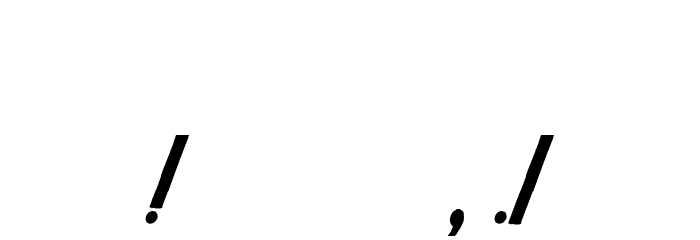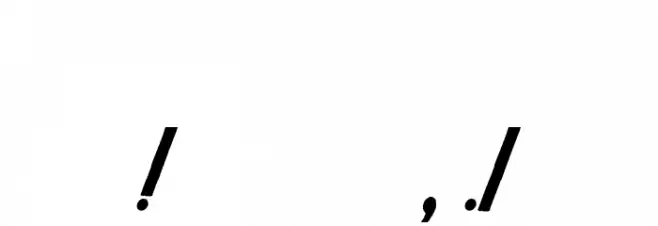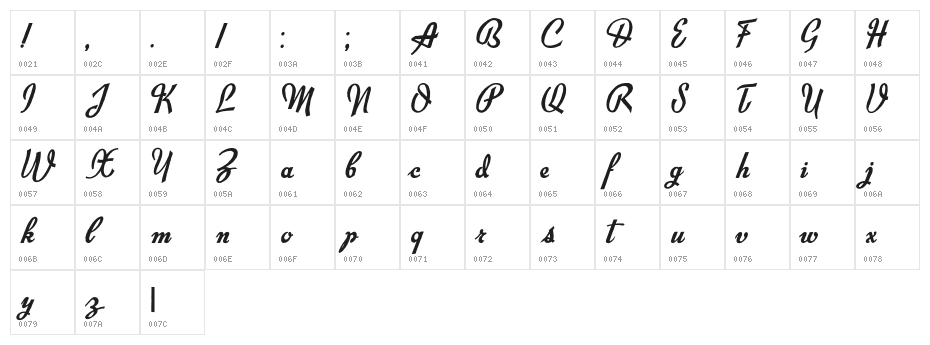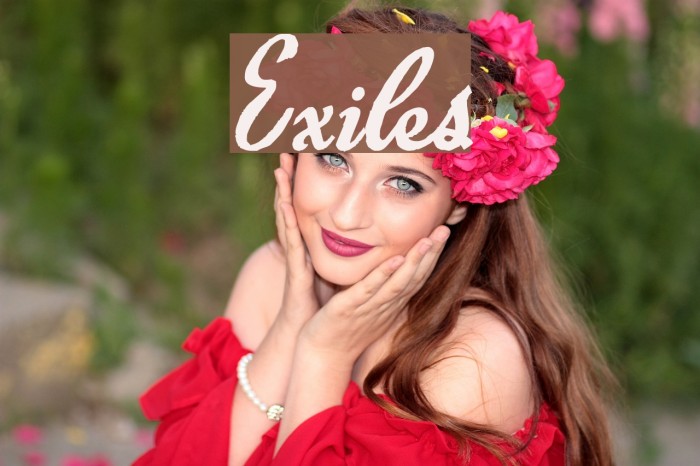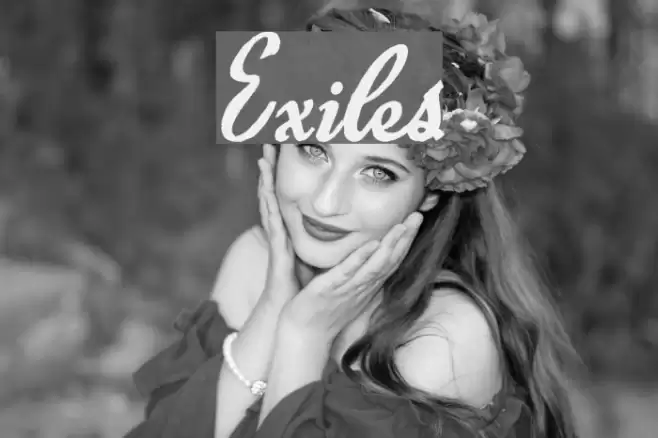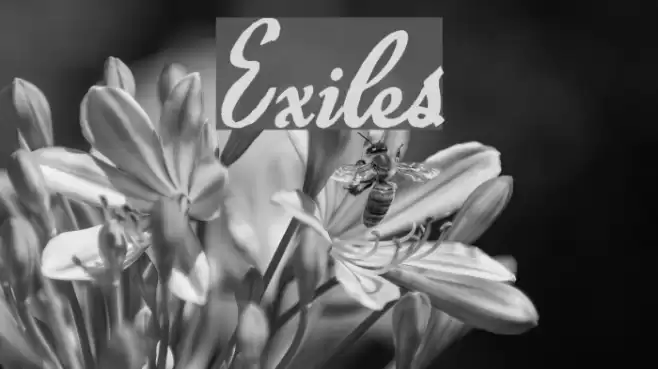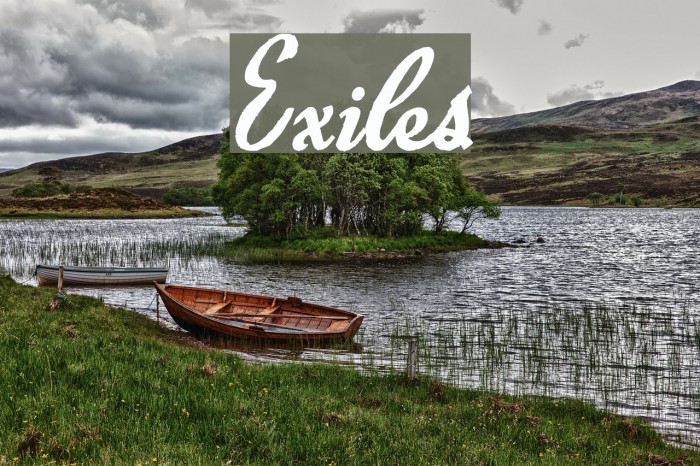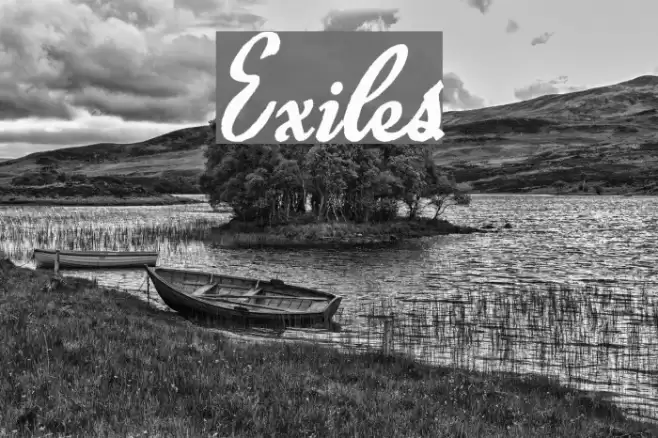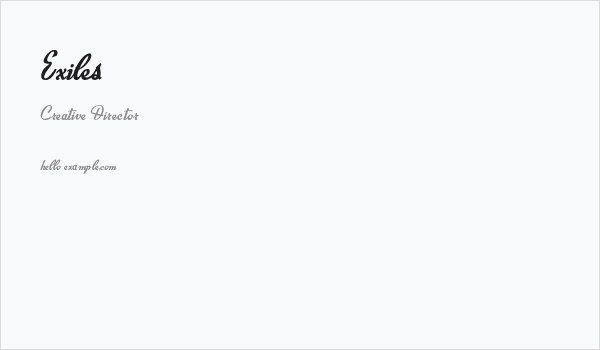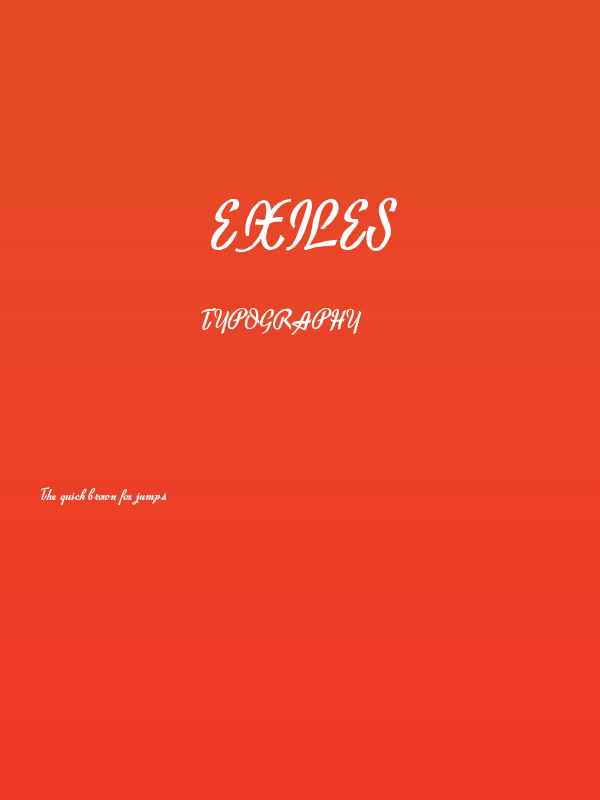
Exiles Font
Exiles Description
This font exudes a dynamic and expressive style, characterized by its bold, flowing script that mimics the fluidity of handwriting. The uppercase letters are particularly ornate, with sweeping curves and flourishes that add a sense of elegance and movement. The lowercase letters maintain a consistent style, with smooth connections between characters, enhancing readability while preserving the decorative nature. The numbers and special characters are crafted to match the overall aesthetic, ensuring a cohesive look across all text. This font is ideal for projects that require a touch of sophistication and flair, such as invitations, branding, or artistic displays.
| Use Case | Logos, Headlines, Artistic Displays |
| Proposed Projects | Ideal for wedding invitations, branding, artistic posters, and elegant signage. |